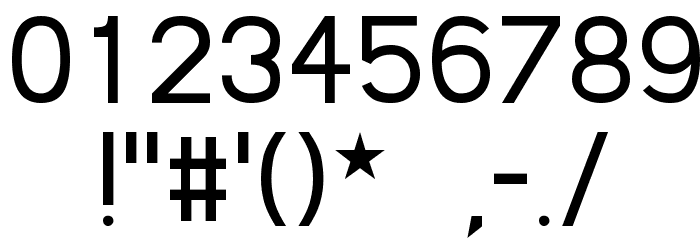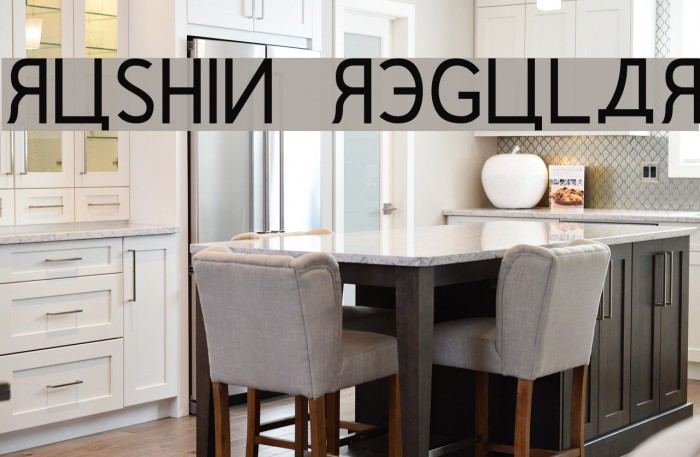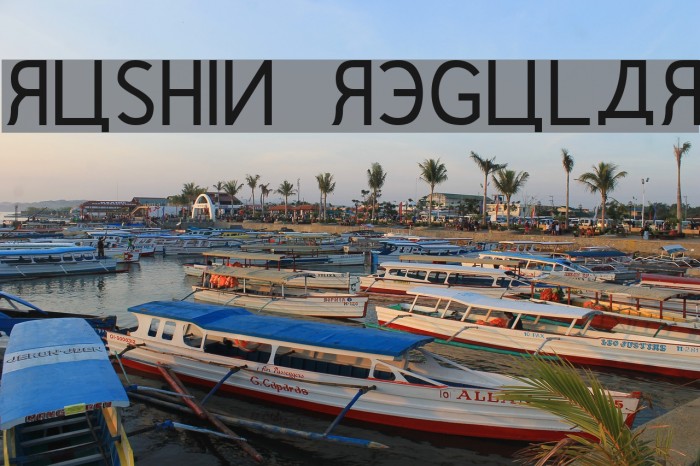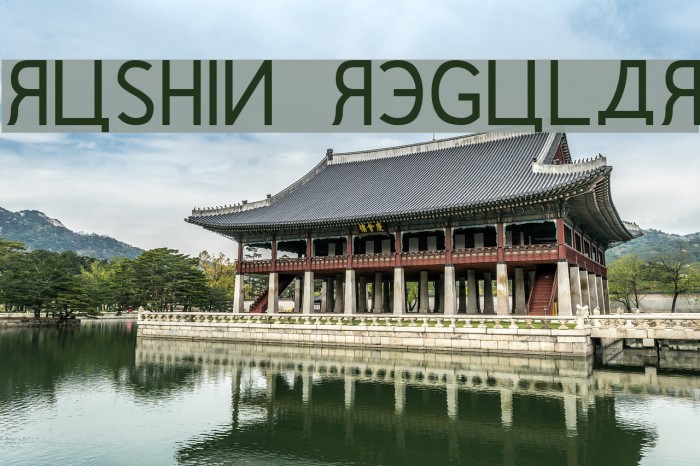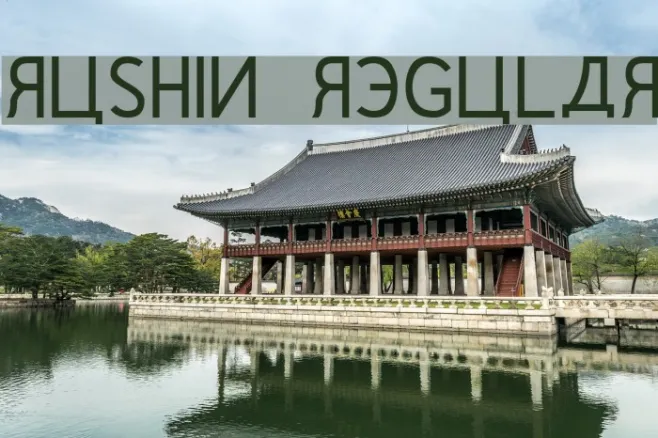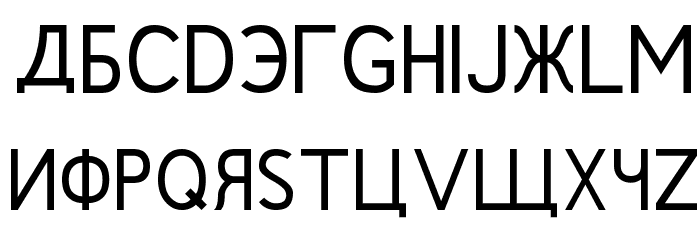
Rushin Regular Font
Rushin Regular Description
This font features a clean and modern sans-serif style with a geometric structure. The characters are uniform in width, providing a balanced and harmonious appearance. The uppercase letters are bold and assertive, while the lowercase letters maintain a consistent and readable form. The numerals are clear and straightforward, making them suitable for various applications. Special characters are included, adding versatility to the font's usage. The overall design is minimalistic, focusing on clarity and functionality, making it ideal for digital and print media.
| Use Case | Headlines, Body text, Logos |
| Proposed Projects | Ideal for branding, digital interfaces, signage, and editorial design due to its clarity and modern aesthetic. |